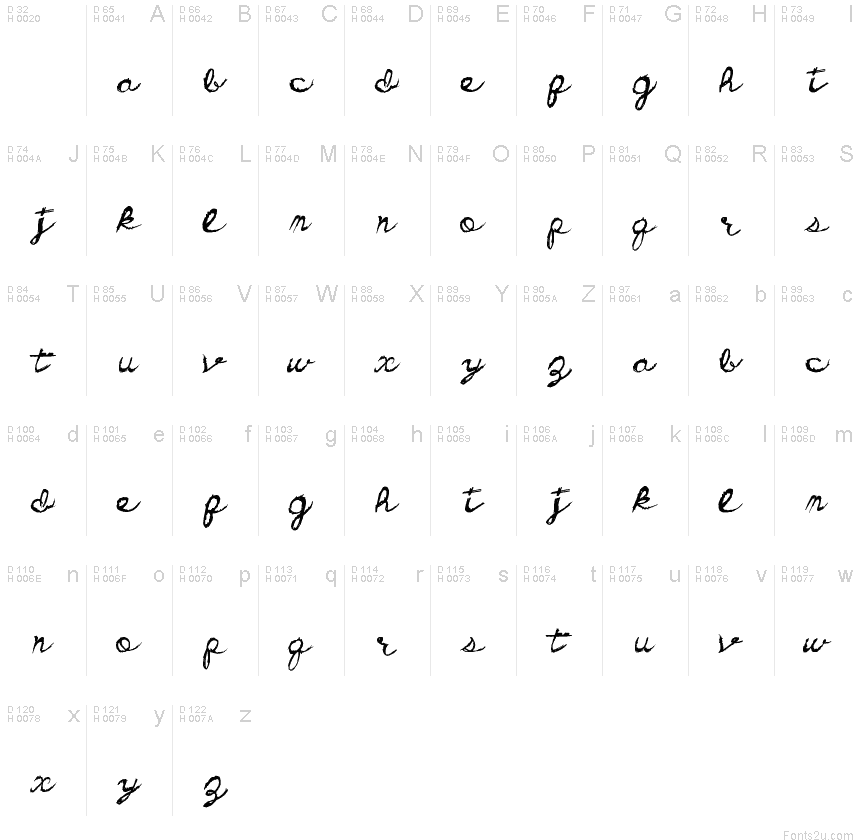
Dirty Cursive by Xerographer Fonts is a free handwritten font with the restless sweep of quickly scrawled ink. Its connected letters swing between broad loops and tight, pinched turns, with rough edges that suggest a dry or skipping pen. The uneven baseline keeps each word visibly unsettled.
Scratched ink can merge with photocopied illustration and distressed patterns in music posters, album covers, and magazine spreads. On fashion packaging or personal stationery, the long loops can continue into borders and line drawings instead of sitting apart as neutral text.